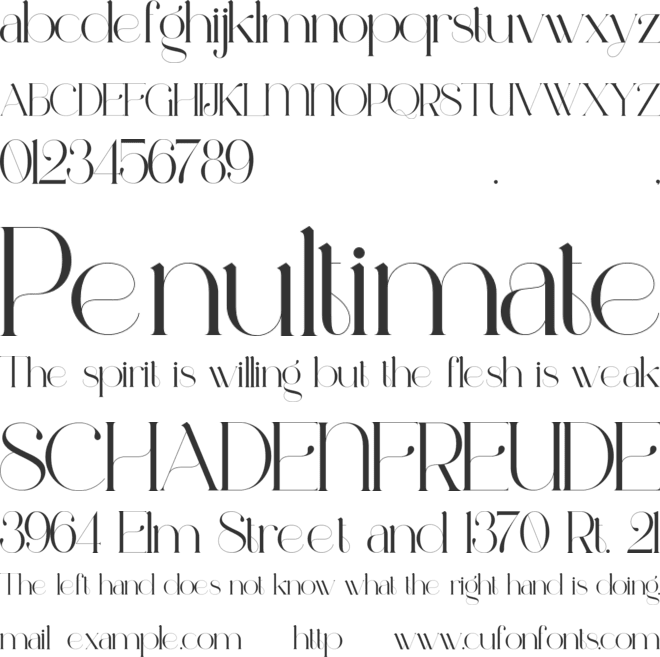
Beauty Ballerina Font
Allow us to introduce Beauty Ballerina, the perfect choice for those seeking a typeface that captures beauty and grace. Each intricate detail of this font reflects the strength, passion, and elegance inherent in every ballerina, embodying the beauty and grace exhibited by ballet dancers.
With a vast collection of over 360+ easily accessible ligatures and alternatives, it empowers everyone to unleash their imagination and transform their creations into luxurious works of art.